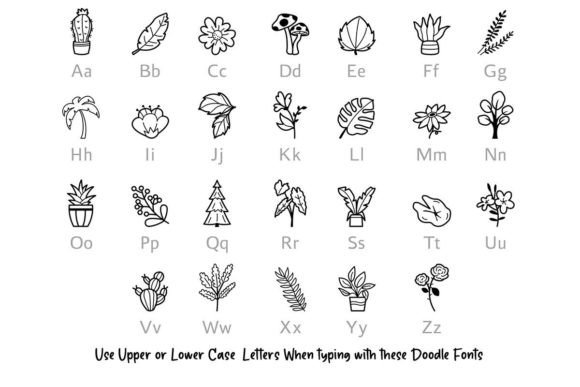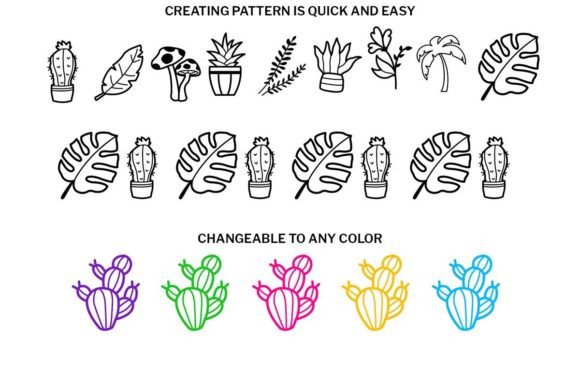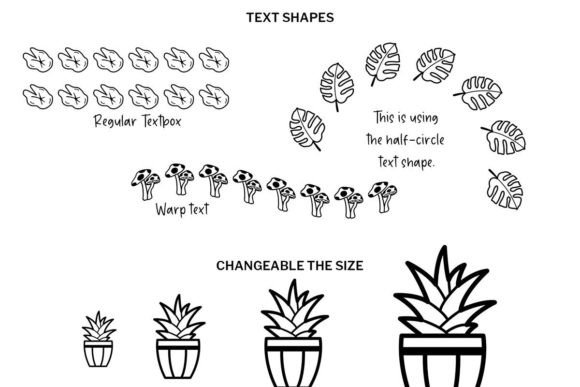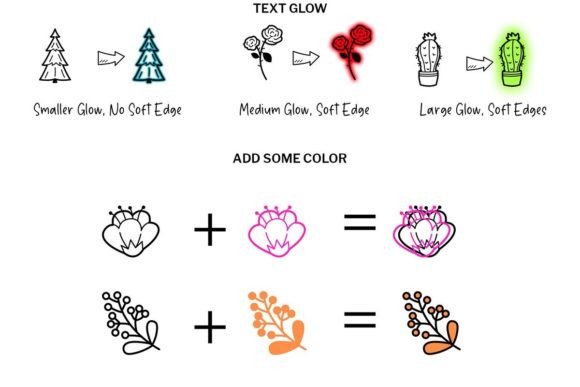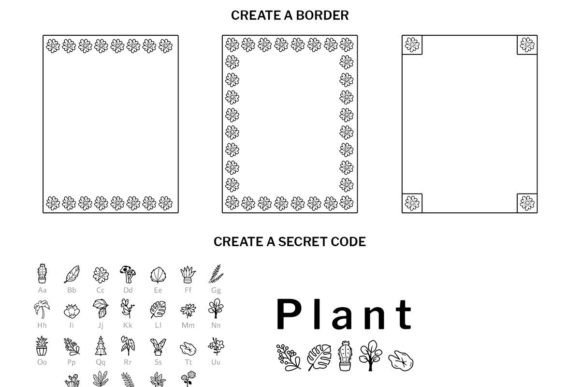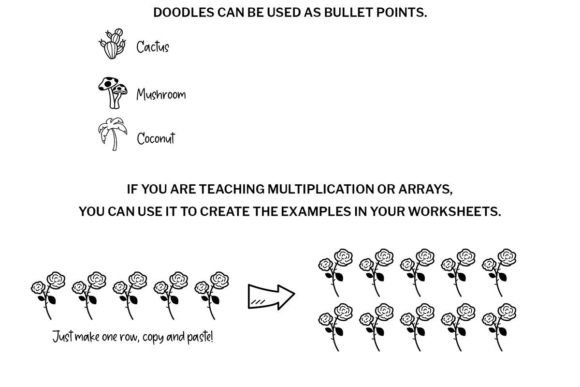
Introduction to Plant Doodle Font
Remember the joy of doodling as a child? The hours spent scribbling patterns, shapes, and flowers onto blank pages, lost in a world of creativity? As an adult, many of us still crave that carefree feeling, and what better way to tap into it than with a fun and versatile font like the Plant Doodle Font? This adorable dingbat font is a design dream come true, perfect for adding a touch of whimsy to your next creative project.
Whether you’re a seasoned designer or a crafty enthusiast, the Plant Doodle Font is an invaluable resource. Its high-quality design makes it perfect for use on transparent backgrounds, allowing you to create stunning visual effects that will elevate your work to the next level. And the best part? It’s free to download, making it an accessible design resource for anyone looking to add a little extra flair to their projects.
Key Features of Plant Doodle Font
- High-quality, hand-drawn illustrations of various plants and flowers, perfect for a creative project.
- Includes 20+ unique plant doodle designs, each with its own character and charm.
Honest Review: Plant Doodle Font
I recently had the chance to work with the Plant Doodle Font, and I must say it’s a delightful addition to any creative project. This font is perfect for adding a touch of whimsy and personality to your designs.
- The Plant Doodle Font is incredibly versatile and can be used in a variety of contexts, from children’s book illustrations to botanical-themed websites.
- The high-quality design ensures that the font looks great on both light and dark backgrounds, including transparent backgrounds.
- The font is limited to uppercase and lowercase letters, which may not be ideal for designs that require extensive text.
- The Plant Doodle Font is not suitable for corporate or formal designs, as it has a playful and informal tone.
Overall, I was impressed with the Plant Doodle Font and would recommend it to designers looking for a creative design resource. Its limitations are minor, and the free download option makes it a valuable asset for any design project.
The Plant Doodle Font is a unique and creative design resource perfect for any project. With a high-quality, transparent background, this font is ideal for use in various digital design applications.
Experiment with different font sizes, colors, and styles to create unique and eye-catching designs. Use the transparent background to create a sense of depth and dimension.
The Plant Doodle Font is perfect for creative projects such as:
- Graphic design and illustrations
- Print design and marketing materials